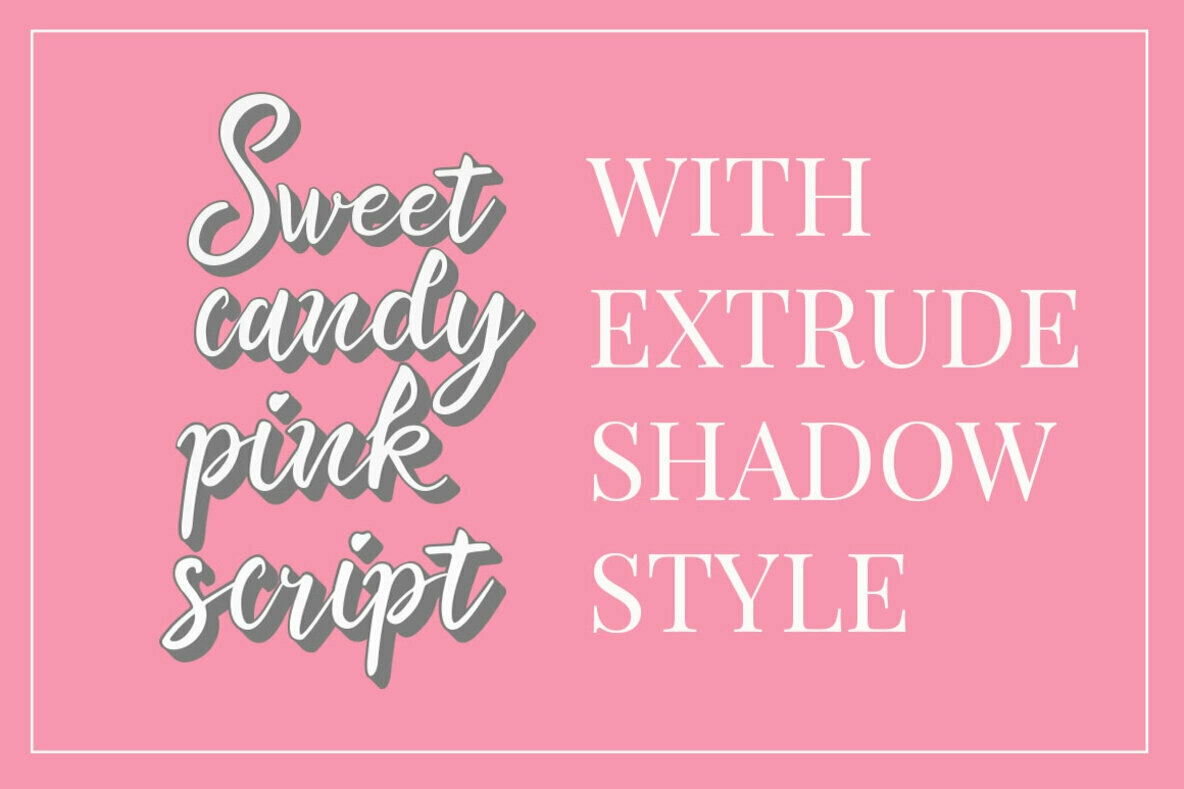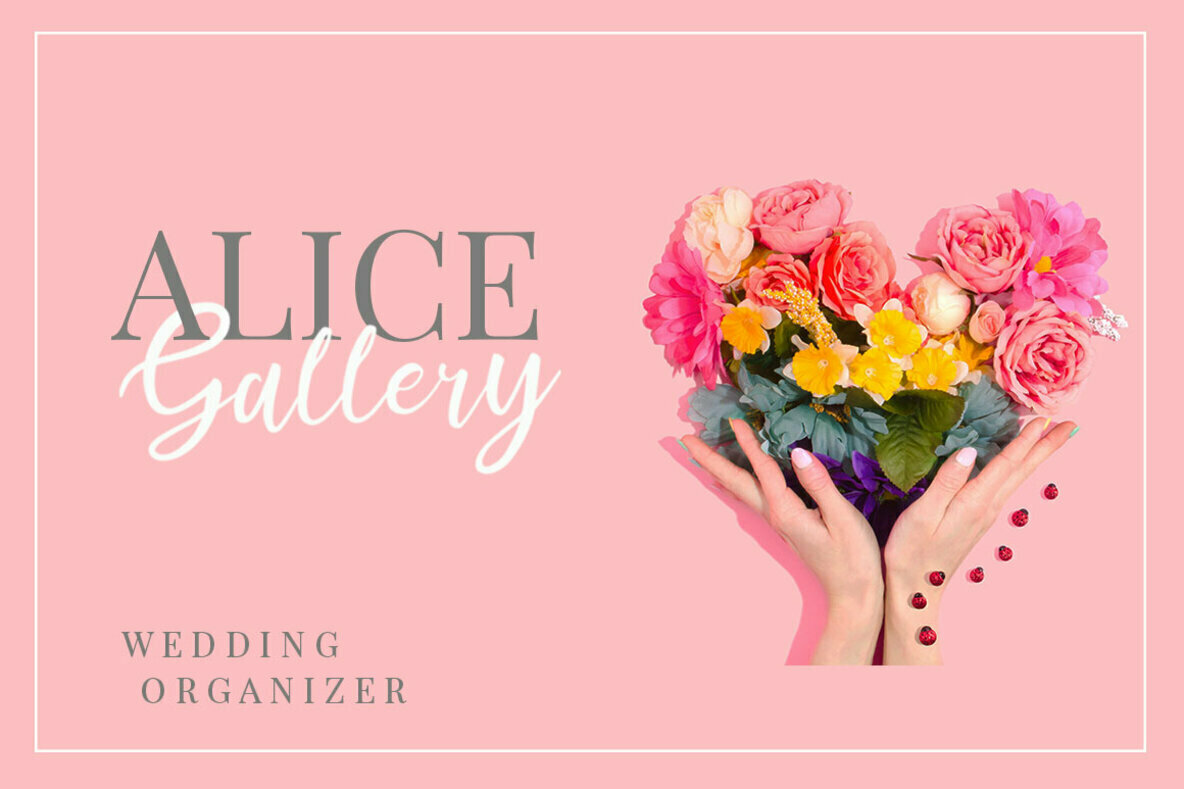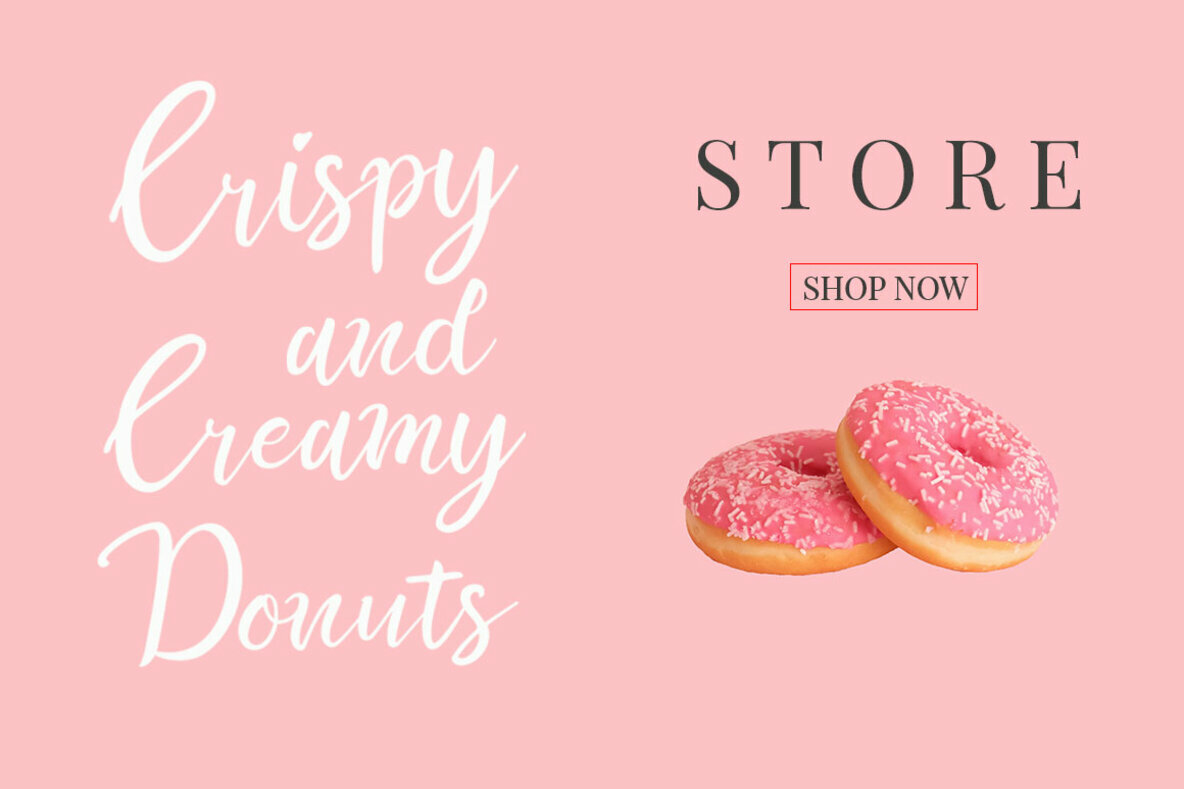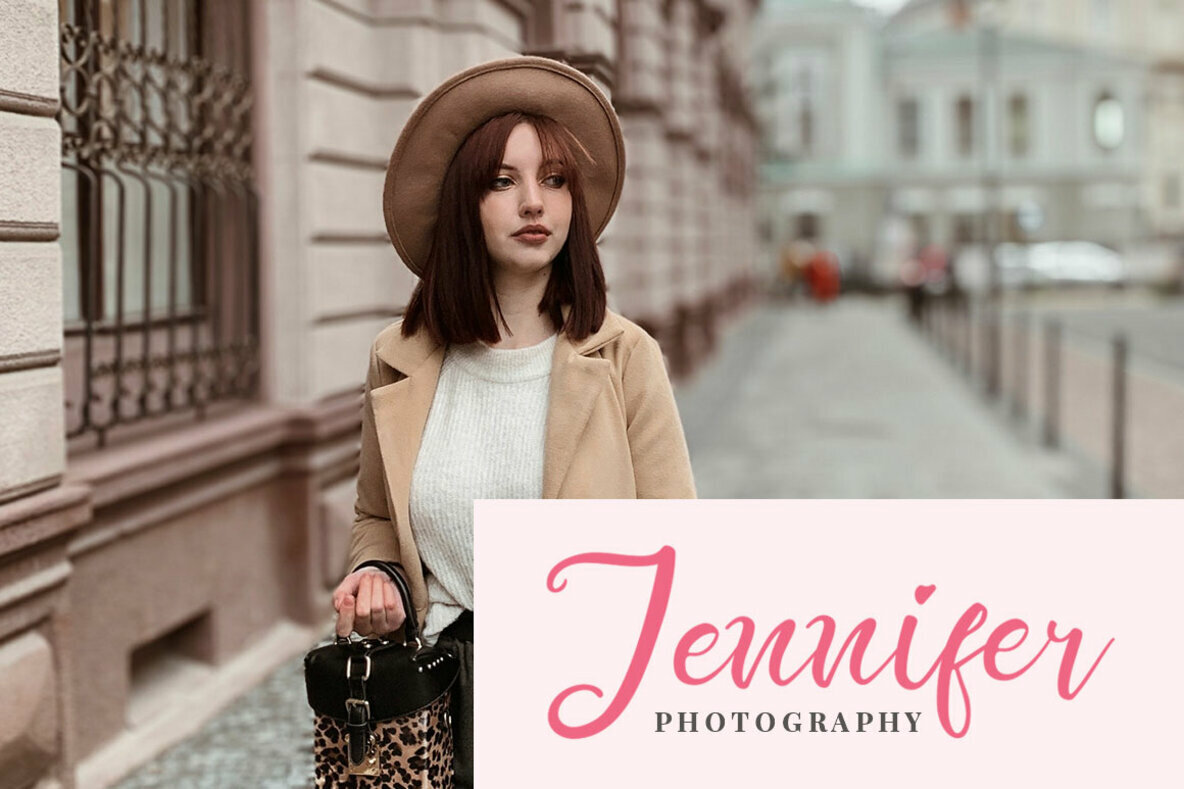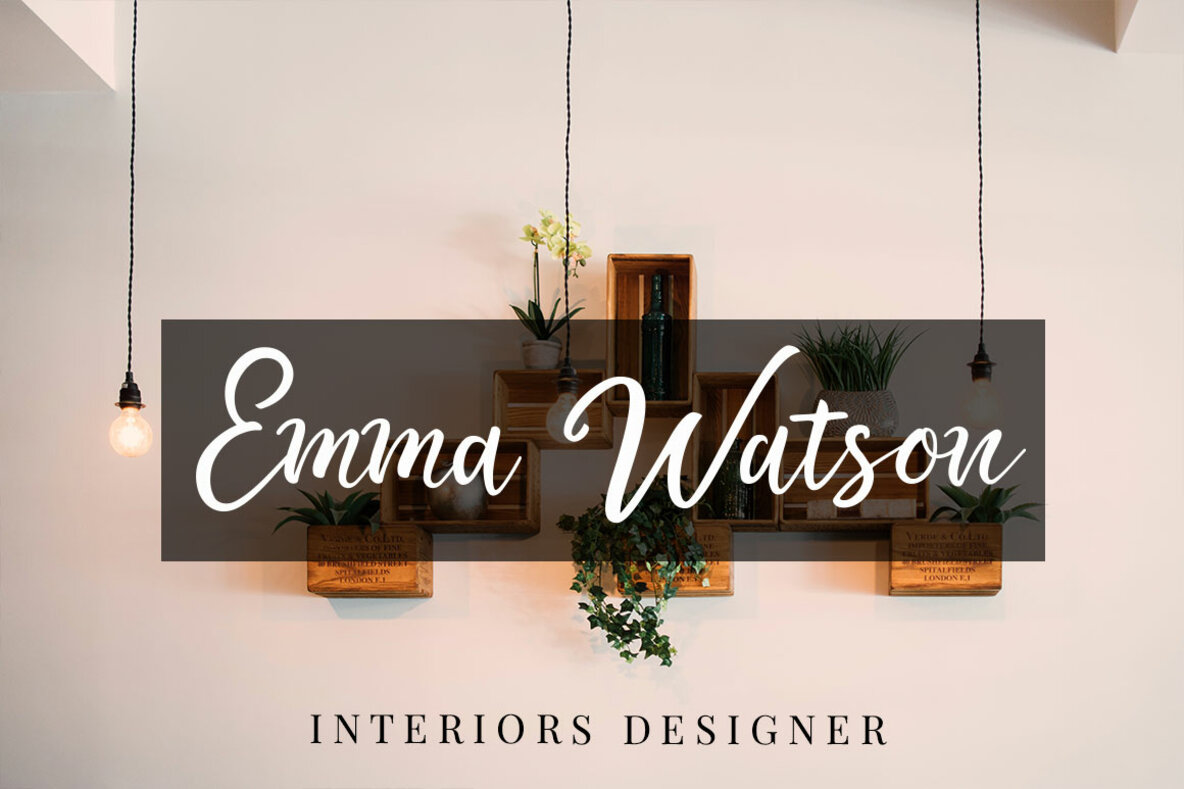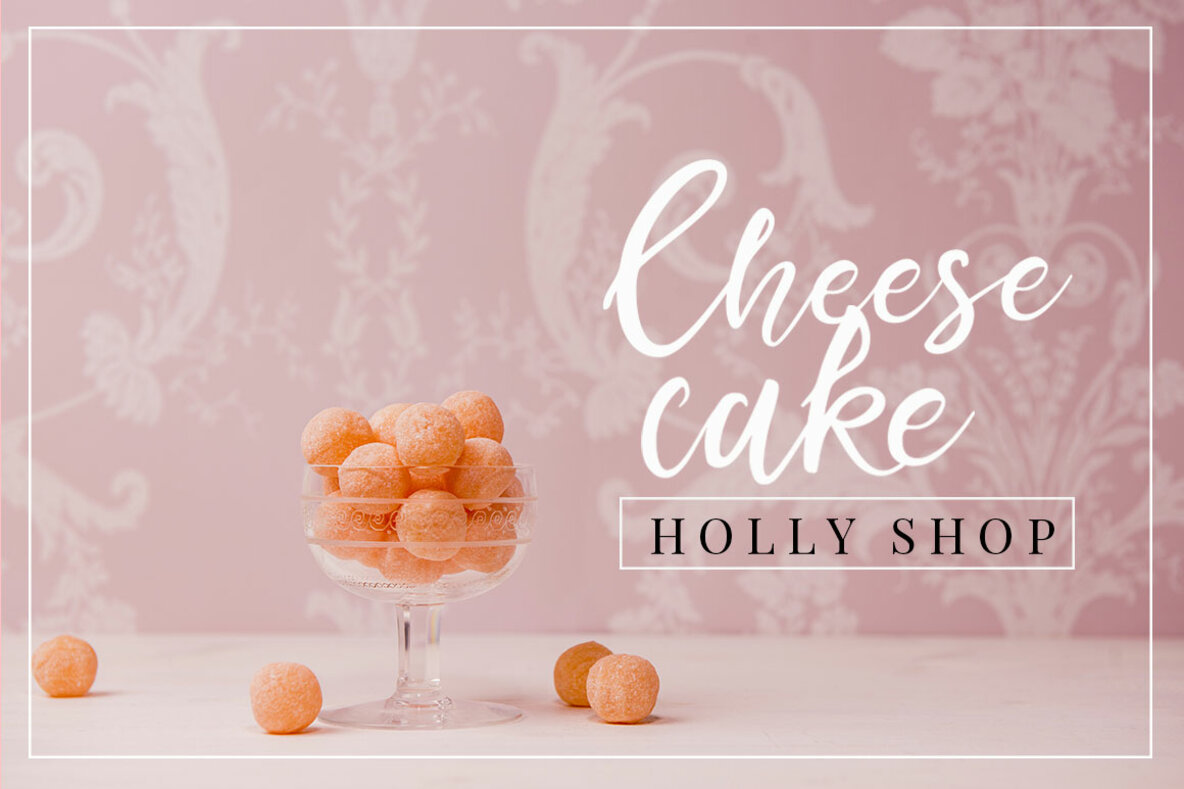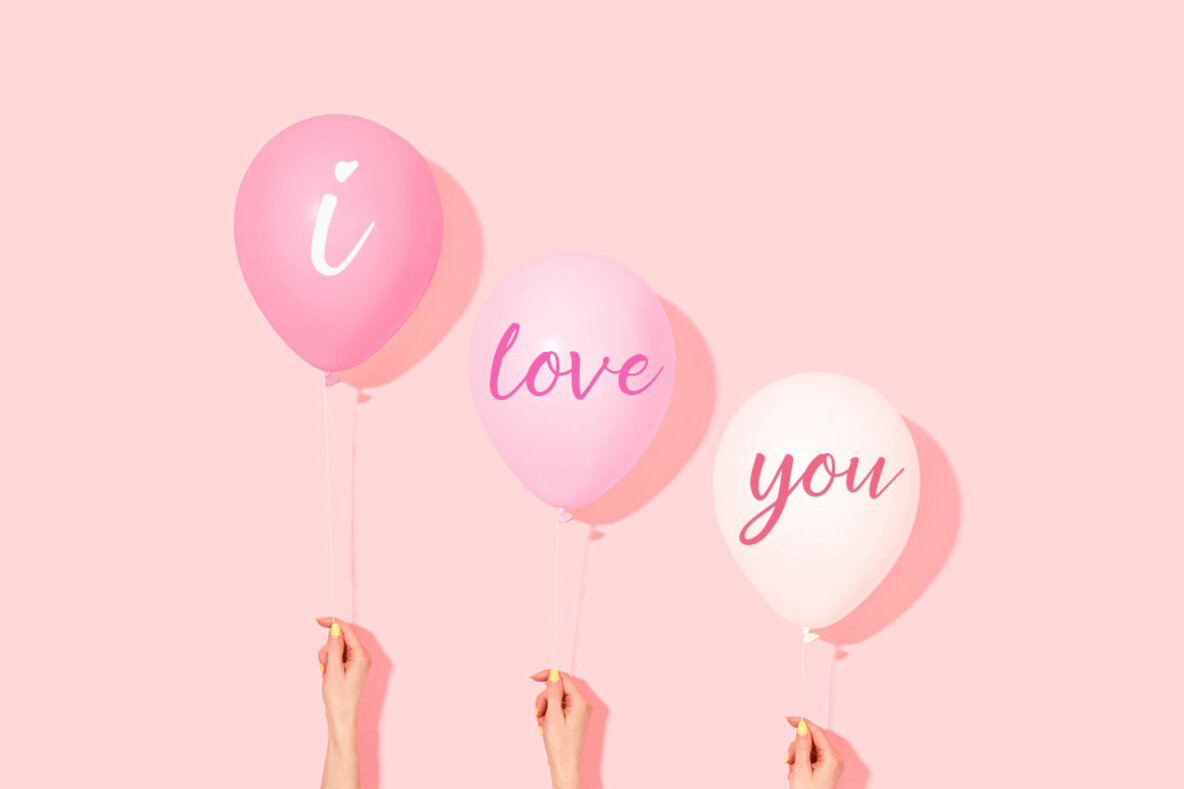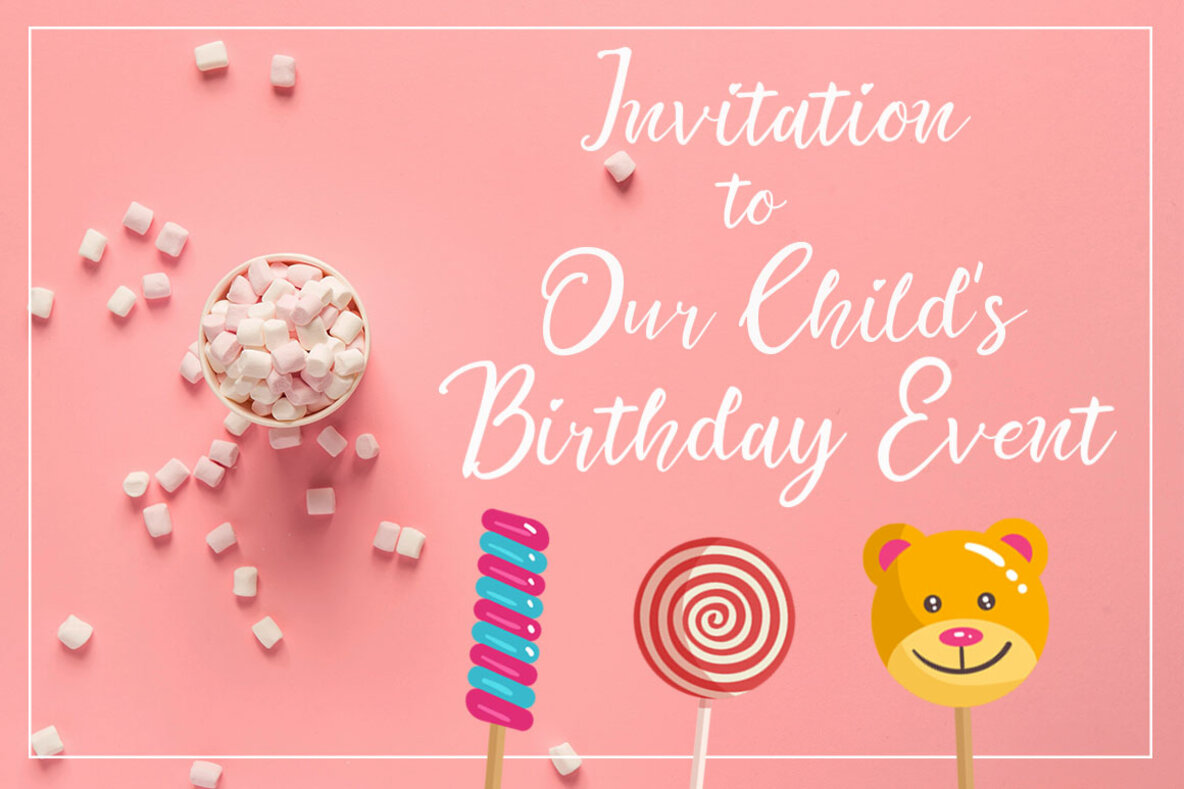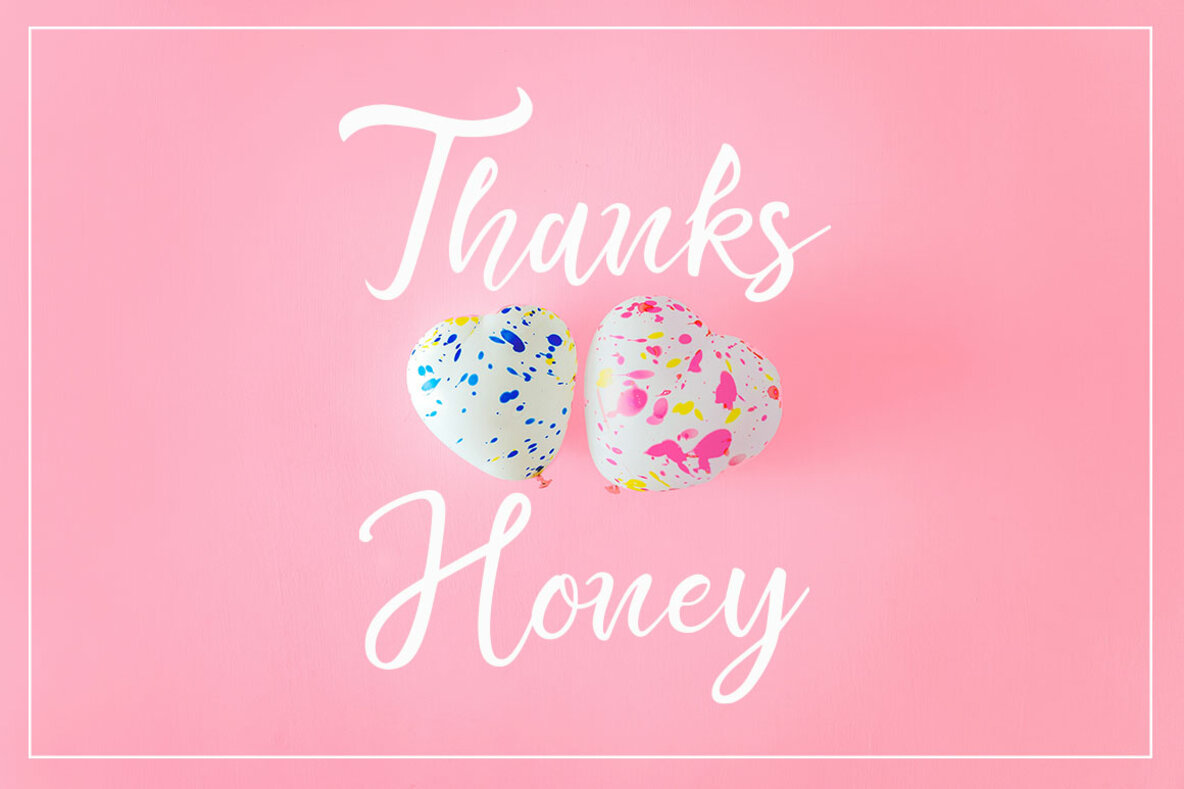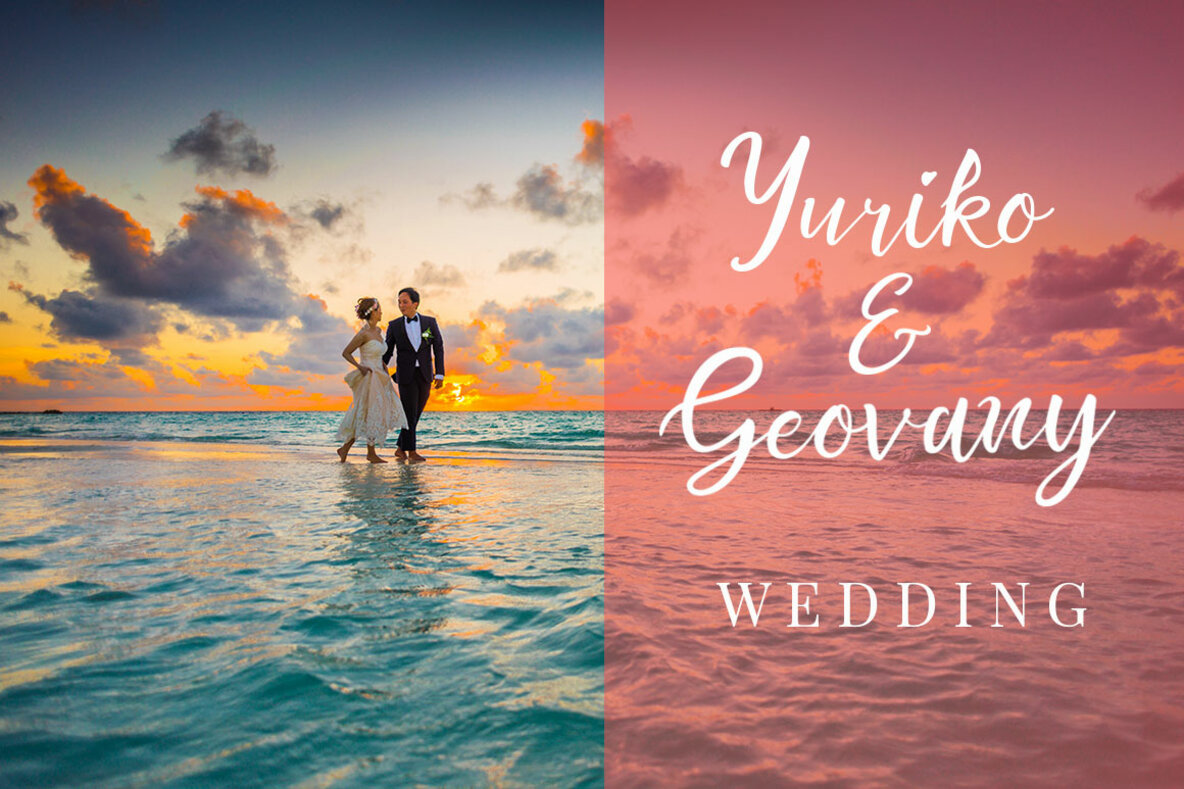
Sweet Candy Pink Script Font
The Sweet Candy Pink Script font is a captivating blend of modern calligraphy and unique extrude shadow style, curated for diverse design needs. Whether you are crafting sophisticated logos, elegant stationery, or impactful social media posts, this font offers a harmonious typography solution. It's particularly suited for wedding designs and branding projects, providing an exquisite touch to various creative endeavors. Features:Sweet Candy Pink Script: Modern Calligraphy With Extrude Shadow